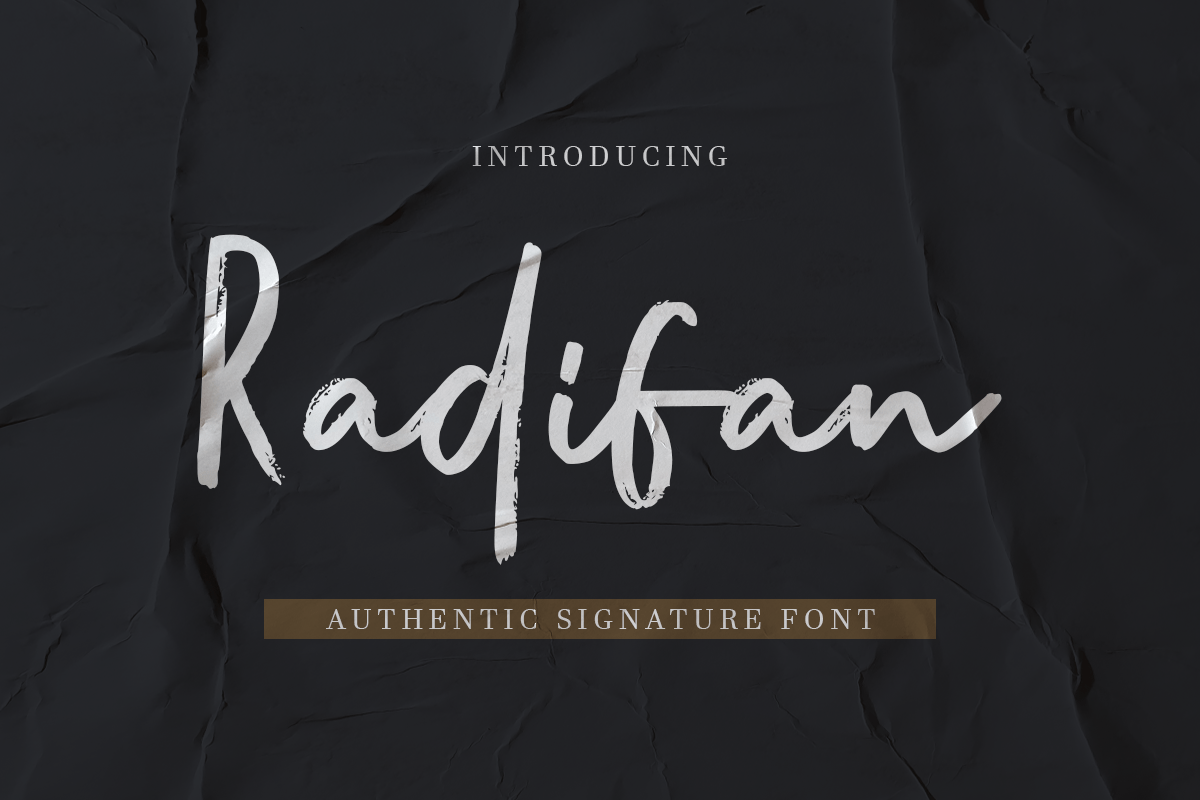
Radifan
-Authentic Signature Font
Radifan, an Authentic Signature Modern Hand Lettered Script Font. Inspired from beauty and feminine style very good for signature, stationery, logo, typography quotes, magazine or book cover, website needs.